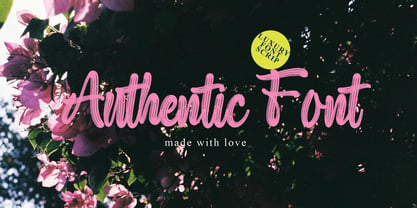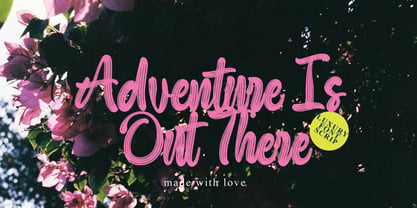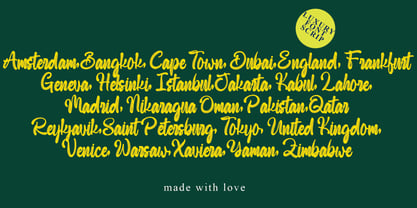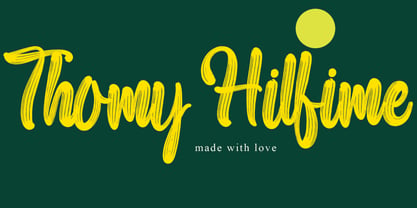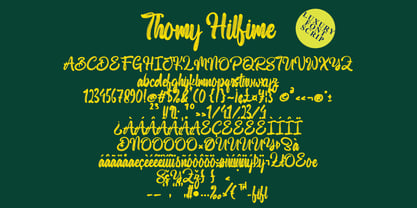
Thomy Hilfime
by Pineungtype misinklab
The Thomy Hilfime Font Family was designed by Beni Saswita and published by Pineungtype misinklab. Thomy Hilfime contains 1 styles. More about this family
Thomy Hilfime is an exquisite lettering font where each character is meticulously designed to enhance the beauty of your text. Featuring a flowing script style, this font is ideal for various projects such as quotes, blog headers, posters, weddings, branding, logos, fashion, apparel, letters, invitations, and stationery. Its elegant curves and striking appearance make it perfect for capturing attention and adding a personal touch to any visual communication. Explore the versatility of Thomy Hilfime to elevate your design projects with its unique charm.
Designers: Beni Saswita
Foundry: Pineungtype misinklab